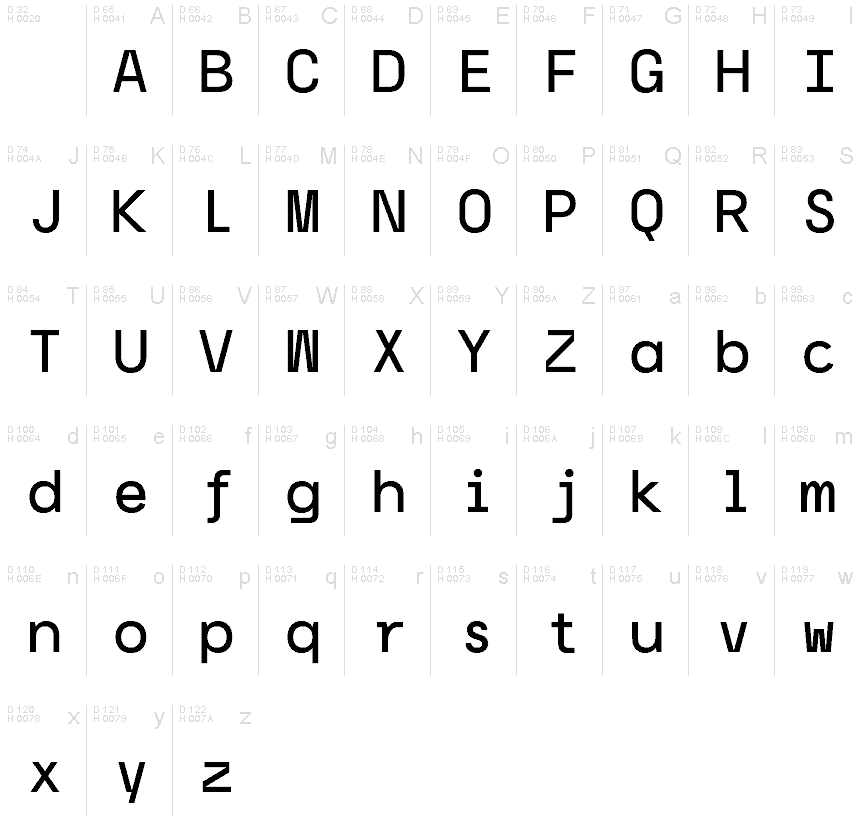
CS Felice Mono Regular Demo
CS Felice Mono font from Craft Supply Co. is a free sans serif font with geometric influences that reveal themselves in a clean, contemporary character build. With every single feature possessing its own set of highlights and appeal, this family transcends many trends to maintain its high standard quality both in print and on-screen.